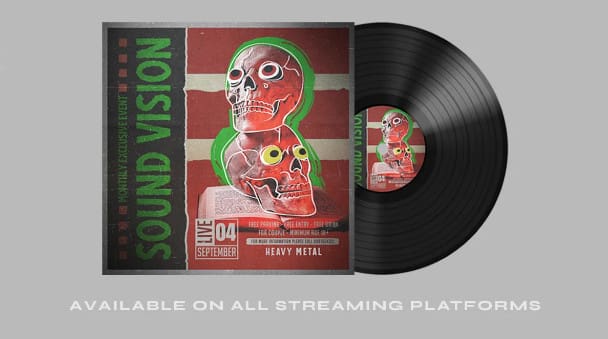
Night Shade Font
Night Shade Font, the font that dares you to venture into the shadows where creepy and fascination intertwine. This font an aura of spine-tingling dread, perfect for instilling suspense but playful too in your designs.
Whether you’re channeling classic horror or crafting a display masterpiece, Nights Side versatility is your creative companion.